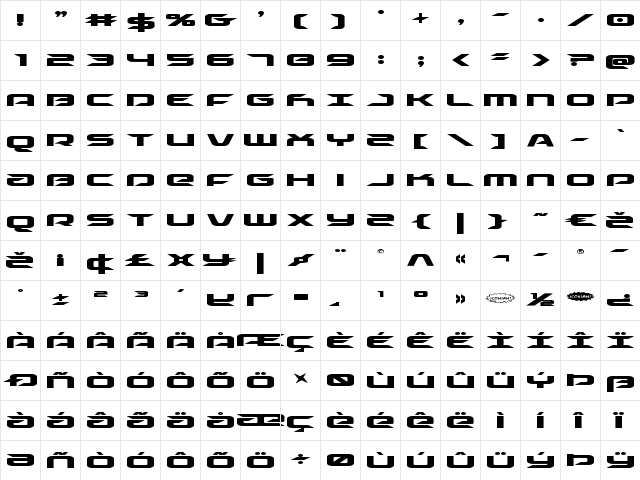
Drive Expanded Expanded
Design Context for Drive Expanded Typeface
Drive Expanded is a composed and adaptable typeface that performs quietly and consistently across a wide range of design contexts.